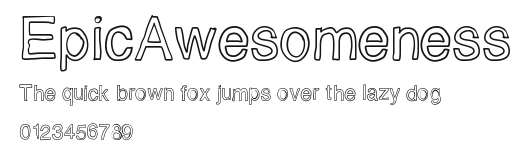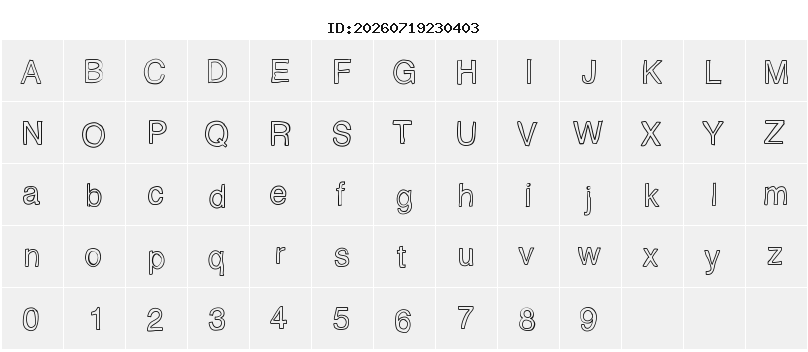
EpicAwesomeness Preview
• Font Name: EpicAwesomeness
• Full Font Name: EpicAwesomeness
• PostScript Name: EpicAwesomeness
About EpicAwesomeness.ttf
EpicAwesomeness.ttf is a modern, elegant sans-serif font designed for ultimate readability and visual harmony. Perfect for branding, headlines, web design, and print materials.